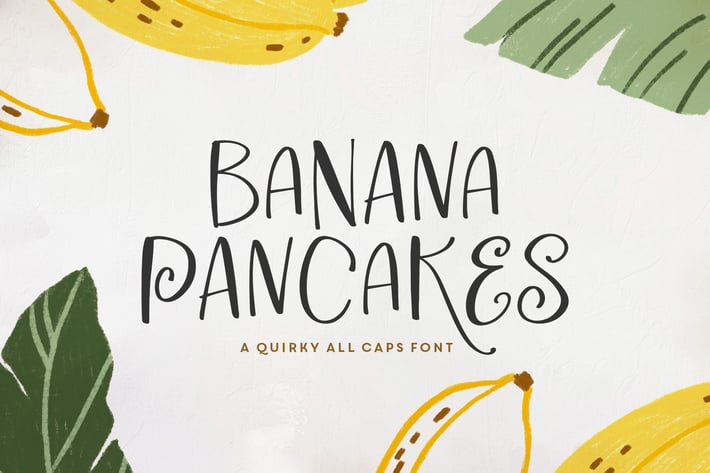
Banana Pancake Typeface
Introducing Banana Pancakes! A fun, uppercase font with double letter ligatures and select alternates. Use on quotes, logos, greeting cards, journals and more! English only.